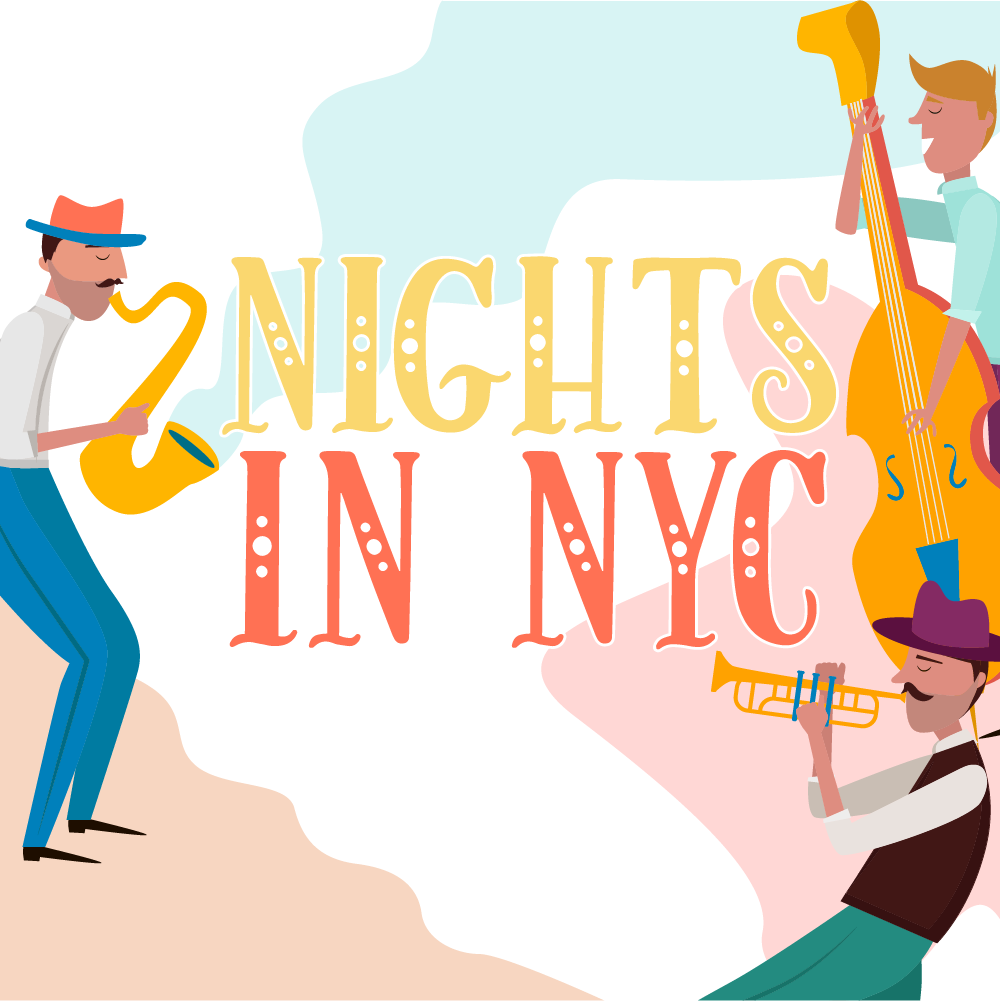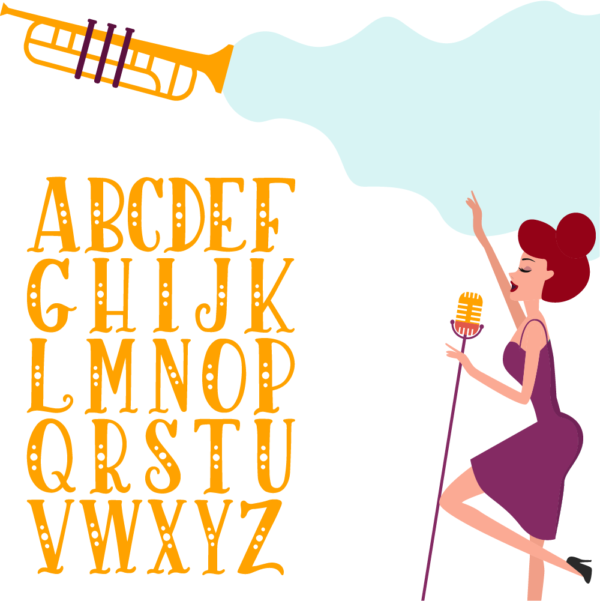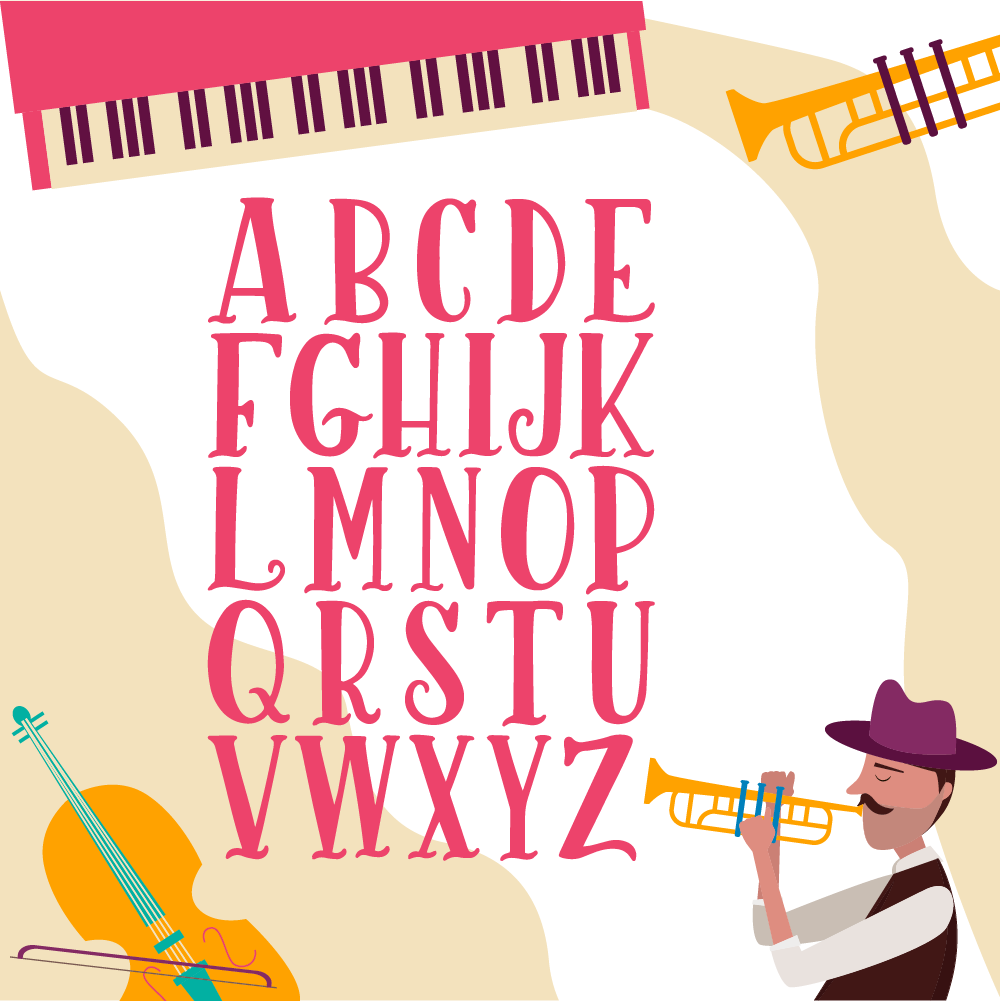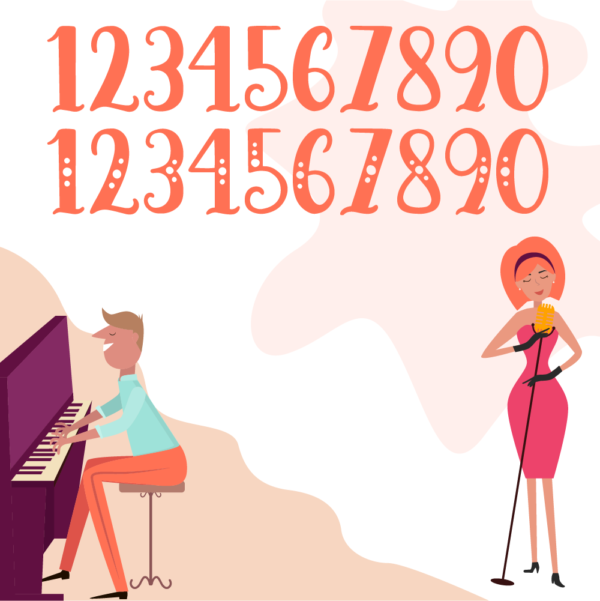
Rosify Font Duo
Rosify Font Duo, made exclusively by LoveSVG.com, is a cut friendly font compatible with Cricut, Silhouette, SCAL and Scan N Cut. Its thickness makes it an ideal font for making cut files.
- Uppercase, numbers & punctuation